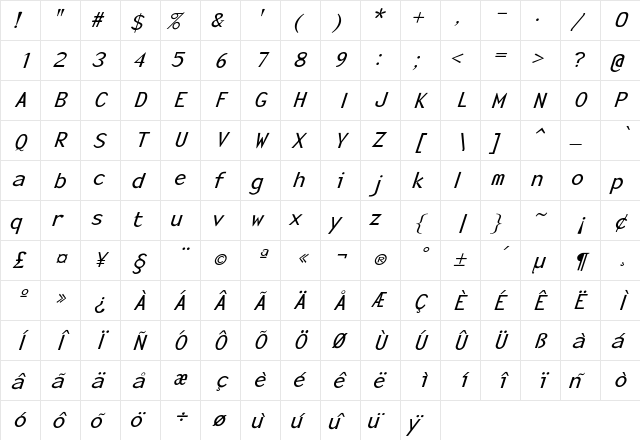
Monotony-Italic Regular
Design Context for Monotony-Italic Typeface
Monotony-Italic uses fixed-width spacing throughout, giving it the structured, systematic character associated with coding environments and technical documentation. The slanted form adds forward momentum and visual energy.
Pro Tip: Use Monotony-Italic with slightly increased line-height for extended reading — fixed-width spacing can feel dense in longer passages without extra breathing room.